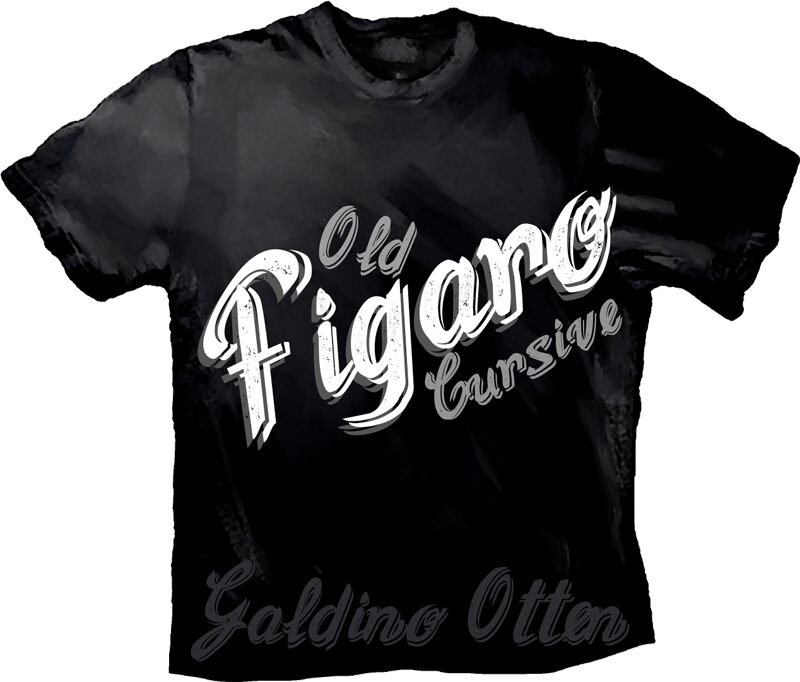
Old Figaro Cursive Italic
Old Figaro Cursive is a stunning handwritten font that exudes a captivating blend of elegance and whimsy. Designed by Galdino Otten, this cursive typeface boasts a flowing, organic appearance that effortlessly evokes a sense of artistry and personal expression. The fluid lines and graceful swashes lend themselves beautifully to a range of design applications, from sophisticated branding and editorial layouts to charming wedding invitations and greeting cards.
The font's versatility and distinct character make it an invaluable asset for designers seeking to infuse their projects with a touch of timeless sophistication and authenticity.